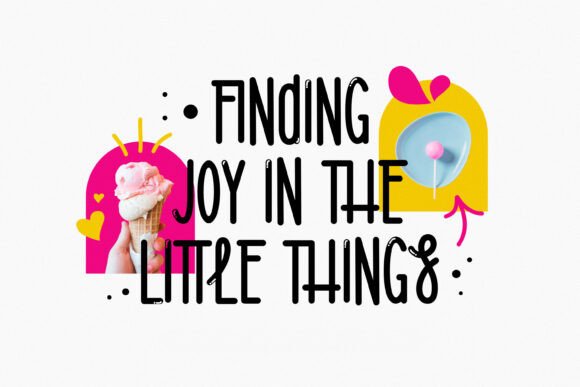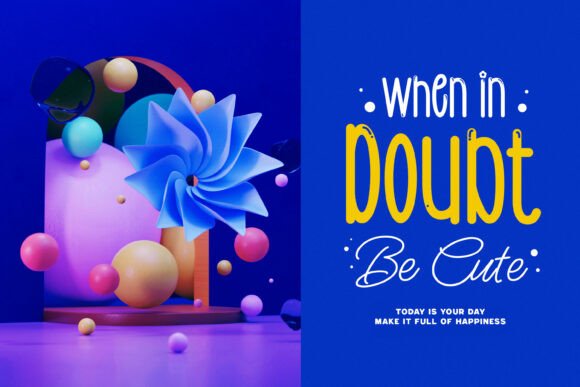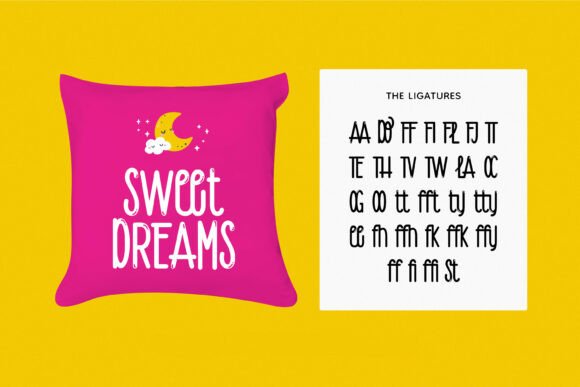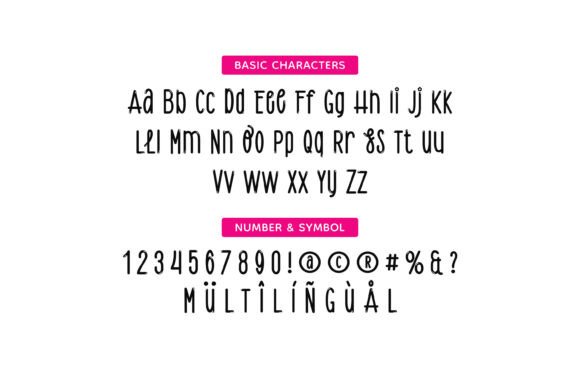
Introduction to Cuddly Bubblebee Font
Have you ever found yourself staring at a blank page, trying to come up with the perfect design for a children’s book or a playful brand? I’m sure many of us have been there at some point in our creative journey. As designers, we’re constantly on the lookout for that special something that will bring our ideas to life. That’s where the Cuddly Bubblebee Font comes in – a delightful display font that’s sure to add a touch of whimsy to any design.
This high-quality font is a treasure trove of creative possibilities, featuring smooth, rounded shapes and playful dotted embellishments that are simply irresistible. With its cheerful, monoline sans serif characters, the Cuddly Bubblebee Font is the perfect design resource for anyone looking to create something truly special. Whether you’re working on a project with a transparent background or need a font for a free download, this font is sure to be a valuable addition to your design toolkit.
Key Features of Cuddly Bubblebee Font
- Unique, Hand-Drawn Design: The Cuddly Bubblebee Font features a playful, hand-drawn design perfect for creative projects and designs that require a touch of whimsy.
Honest Review: Cuddly Bubblebee Font
I recently came across the Cuddly Bubblebee Font, and I’m excited to share my thoughts on this design resource. As a designer, I’m always on the lookout for high-quality fonts that can elevate my creative projects. Let’s dive in and see if this one delivers.
- The Cuddly Bubblebee Font has a unique and playful style that’s perfect for children’s books, magazines, and other projects where a fun and whimsical feel is required.
- The font is not ideal for formal or professional projects, as it can come across as too playful or childish.
- The character set is limited, so it may not be suitable for projects that require a wide range of characters.
Overall, I think the Cuddly Bubblebee Font is a great addition to any designer’s toolkit. While it may have some limitations, its unique style and free download make it a valuable resource for creative projects. Just be sure to use it in the right context to get the most out of it.
Tips for Getting the Most Out of the Cuddly Bubblebee Font
For the best results, use the Cuddly Bubblebee Font with a transparent background to achieve a clean and modern look. Experiment with different font sizes, colors, and combinations to add visual interest to your design.